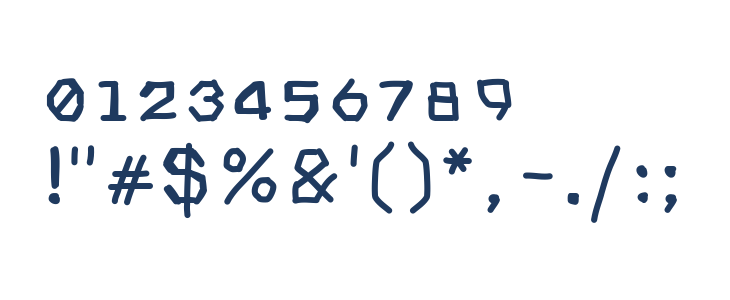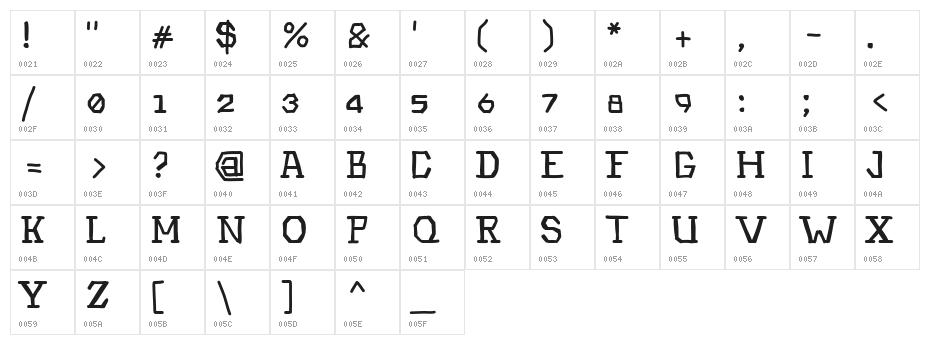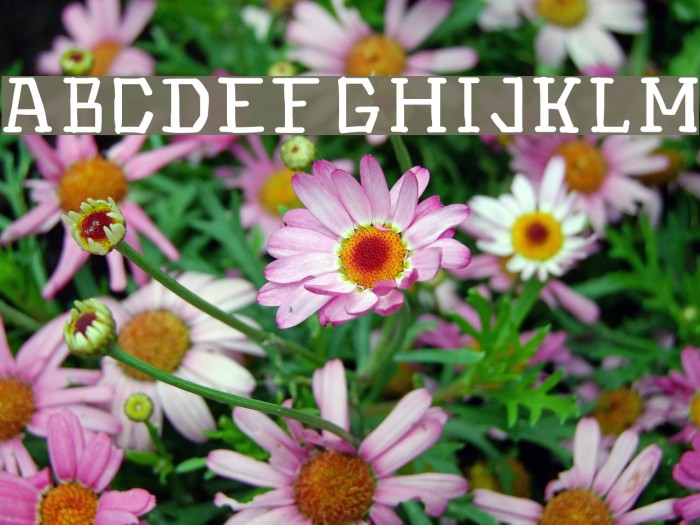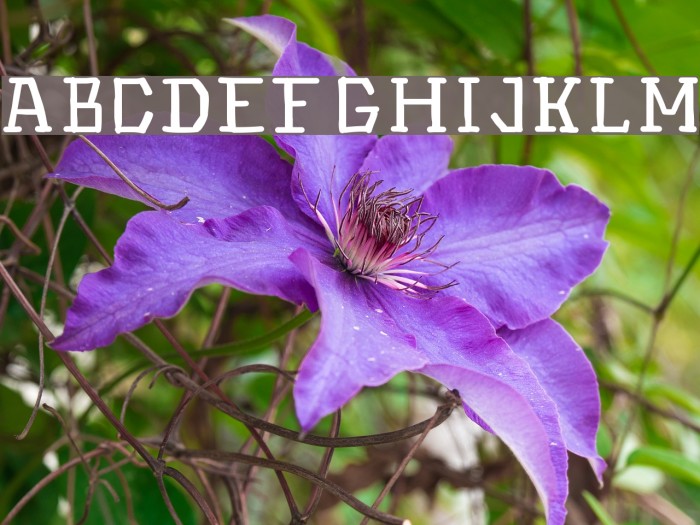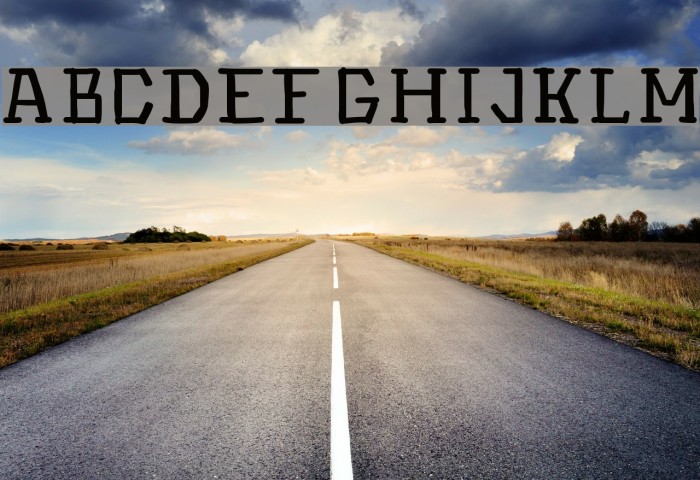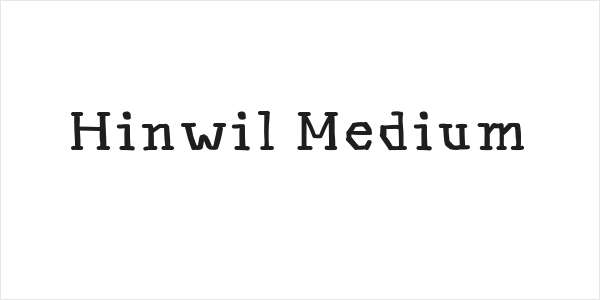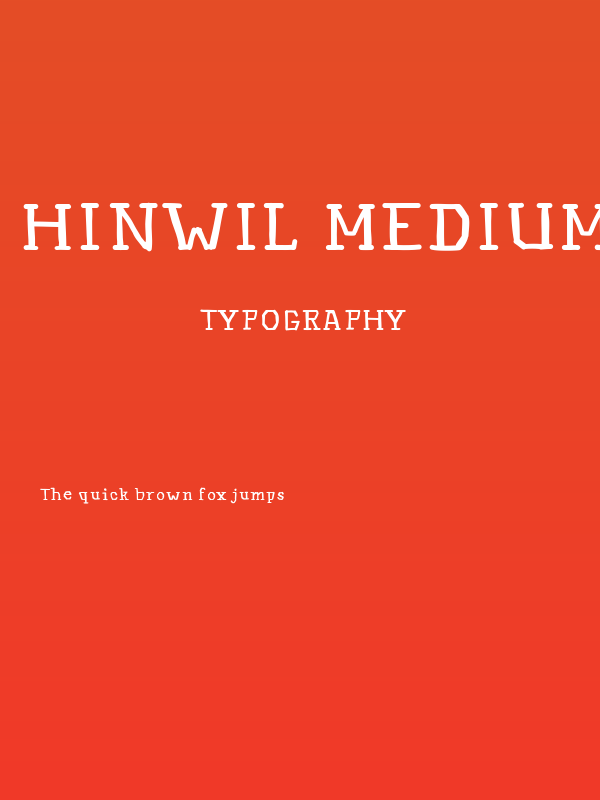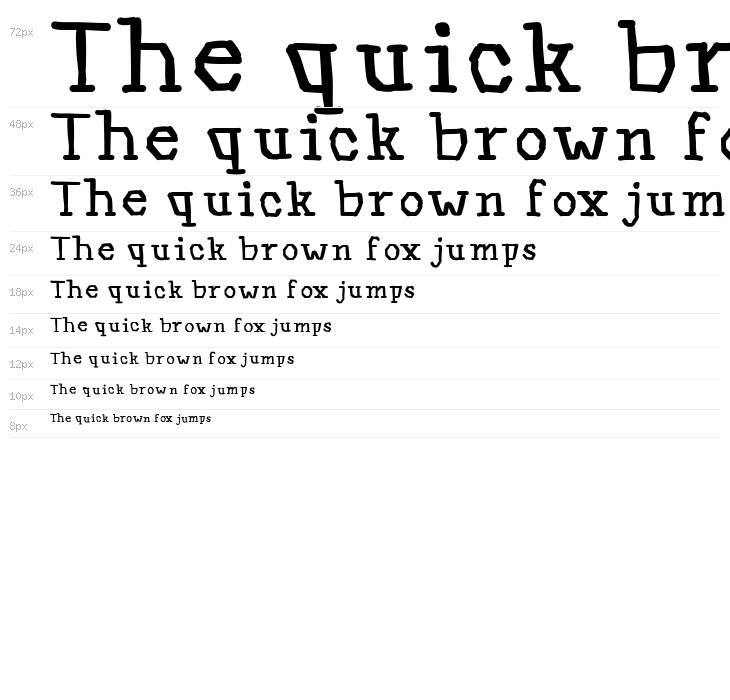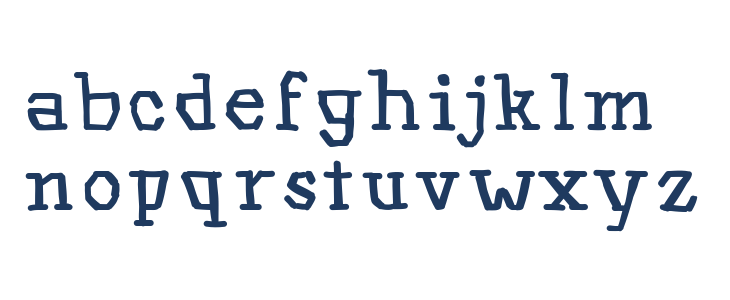
Hinwil Medium Font
This font exhibits a unique, hand-drawn aesthetic with a slightly irregular and playful character design. The uppercase letters are bold and assertive, featuring a mix of straight and slightly curved lines that give them a distinctive look. The lowercase letters maintain a consistent style, with rounded edges and a casual feel. Numbers are bold and easily legible, while special characters are creatively designed to match the overall theme. The font's quirky and artistic style makes it suitable for projects that require a personal touch or a creative flair.
| Proposed Projects | Ideal for creative projects such as posters, invitations, and branding materials that require a unique and personal touch. |